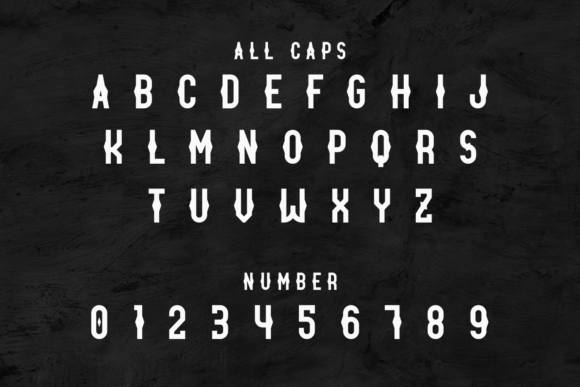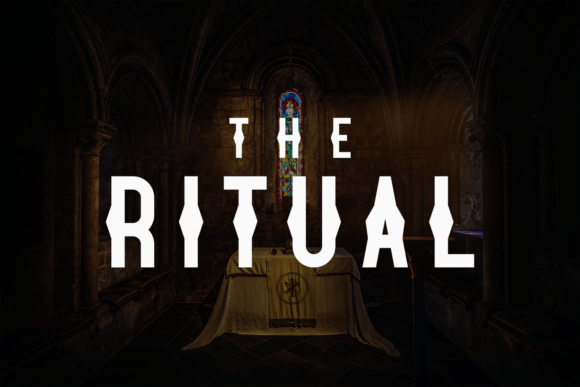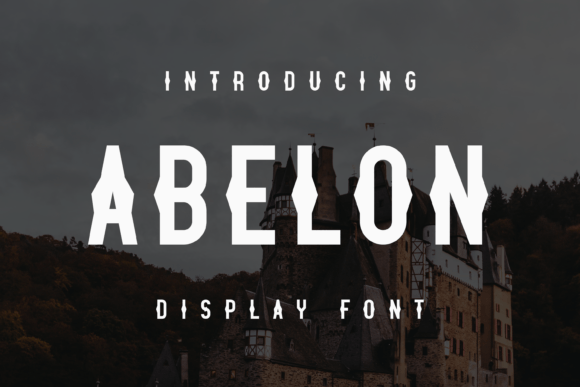
Introducing Abelon Font: The Cool and Unique Display Font You Need
Are you tired of using the same old fonts in your designs? Look no further than Abelon Font, a cool and unique display font that’s sure to elevate your creations. Whether you’re a designer, craftsperson, or simply someone who loves to dabble in graphics, Abelon Font is an incredible asset to have in your font library.
What Makes Abelon Font So Special?
Abelon Font is a one-of-a-kind display font that’s designed to make a statement. Its unique and cool design makes it perfect for a wide range of projects, from bold headlines to eye-catching posters. No matter the topic or theme, Abelon Font is sure to add a touch of personality and style to your work.
Key Features of Abelon Font
- Unique Design: Abelon Font boasts a distinctive design that’s unlike any other font out there. Its bold lines, curves, and shapes make it a true standout.
- Versatility: Whether you’re working on a digital project or a print project, Abelon Font is the perfect choice. It’s suitable for a wide range of applications, from logos and branding to posters, flyers, and more.
- Easy to Read: Despite its bold and unique design, Abelon Font is surprisingly easy to read. This makes it perfect for headlines, titles, and other applications where you want to make a statement without sacrificing legibility.
- High-Quality: Abelon Font is a high-quality font that’s designed to deliver exceptional results. Its crisp lines and smooth curves ensure that your text looks professional and polished.
How to Use Abelon Font in Your Designs
Abelon Font is incredibly easy to use, even if you’re new to graphic design. Here are a few tips to get you started:
- Pair it with Other Fonts: Abelon Font pairs perfectly with a wide range of other fonts. Try pairing it with a clean sans-serif font for a bold and modern look.
- Experiment with Colors: Abelon Font looks amazing in a wide range of colors. Try experimenting with different colors and gradients to find the perfect look for your design.
- Use it for Headlines: Abelon Font is perfect for headlines and titles. Use it to add a touch of personality and style to your text.
Why Designers and Crafters Love Abelon Font
Abelon Font has quickly become a favorite among designers and crafters. Here are a few reasons why:
- Unique Style: Abelon Font offers a unique style that’s hard to find in other fonts. Its bold and cool design makes it perfect for designers who want to stand out from the crowd.
- Ease of Use: Abelon Font is incredibly easy to use, even for those who are new to graphic design. Its simple and intuitive design makes it easy to get started.
- Versatility: Abelon Font is suitable for a wide range of projects, from digital designs to print projects. Its versatility makes it a great addition to any font library.
Abelon Font is a cool and unique display font that’s perfect for designers, craftspersons, and anyone who loves to dabble in graphics. Its bold and eye-catching design makes it perfect for a wide range of projects, from bold headlines to eye-catching posters. With its ease of use, versatility, and high-quality design, Abelon Font is an incredible asset to have in your font library.